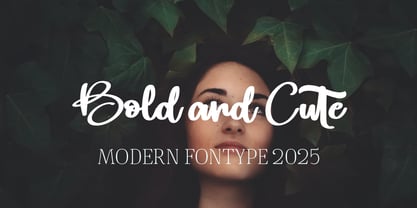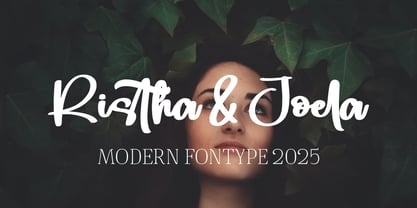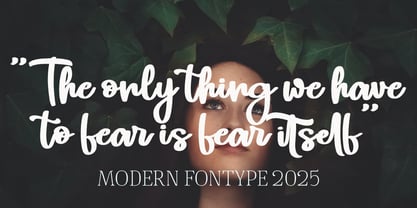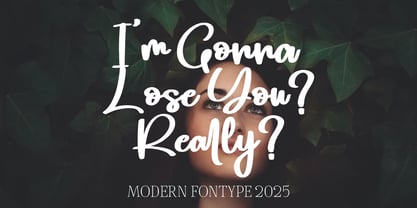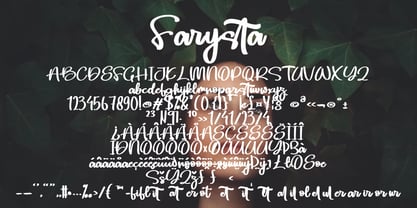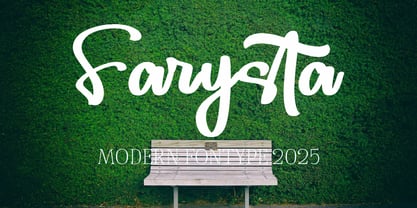
Farysta
by Naatypo
The Farysta Font Family was designed by Kurnia Elis Setyorini and published by Naatypo. Farysta contains 1 styles. More about this family
Farysta font is ideal for logos, branding projects, homeware designs, product packaging, mugs, quotes, posters, shopping bags, t-shirts, book covers, name card, invitation cards, greeting cards, label, photography, watermark, special events, and all your other luxury and beautiful projects that need a Luxury Script taste. The script font exudes energy and personality, while the sans-serif counterpart ensures clarity and versatility.
Designers: Kurnia Elis Setyorini
Foundry: Naatypo